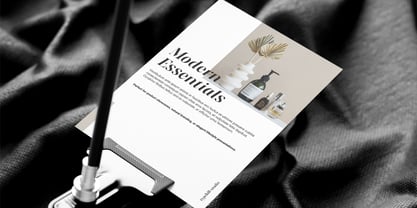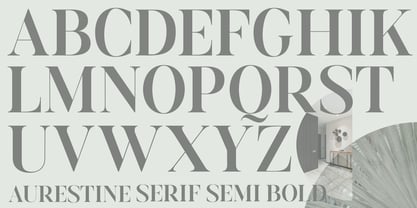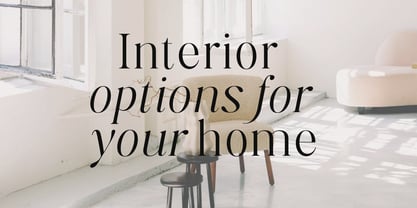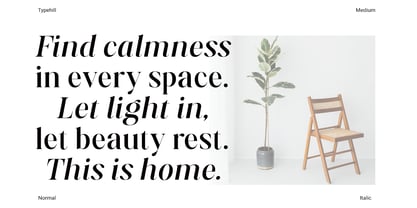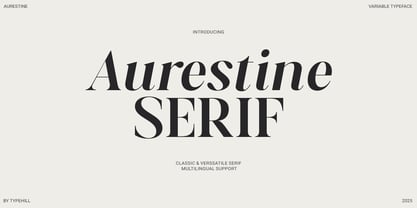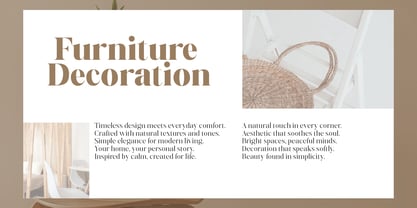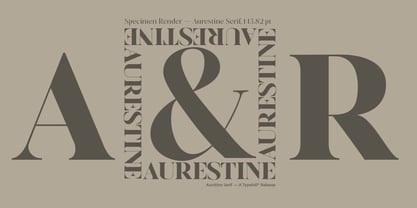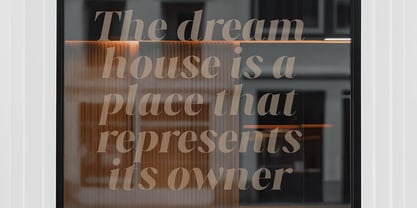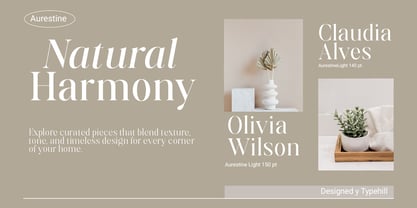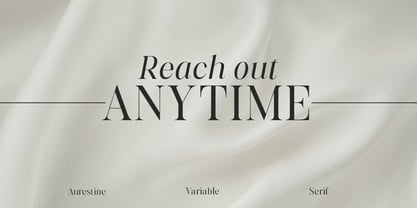
Aurestine Serif
von Typehill Studio
Die Schriftfamilie Aurestine Serif wurde von Teuku Fahruddin entworfen und von Typehill Studio veröffentlicht. Aurestine Serif enthält 20 Stile und Familienpaketoptionen. Mehr über diese Familie
Aurestine Serif Variable
Elegant Versatility in 18 Styles
Aurestine Serif Variable is a refined serif typeface crafted for elegance, readability, and expressive design. Featuring 18 meticulously designed styles — 9 uprights and 9 matching italics — Aurestine offers fluid versatility for editorial layouts, branding, and sophisticated display typography.
With its graceful curves, classic proportions, and finely tuned contrast, Aurestine evokes timeless serif traditions while embracing modern typographic needs. From the delicate Thin to the commanding Black, each weight retains clarity and character, making it a reliable tool for both text and headline use.
The italic styles are not just slanted versions, but thoughtfully drawn to convey fluidity and warmth, perfect for emphasis or artistic flair.
• 18 styles: 9 Upright & 9 Italic
• Beautiful typographic details and soft sharpness
• Ideal for branding, editorial, packaging, and digital use
Let Aurestine Serif bring both structure and sophistication to your next project — a font that speaks with quiet confidence and lasting beauty.
Designer: Teuku Fahruddin
Foundry: Typehill Studio